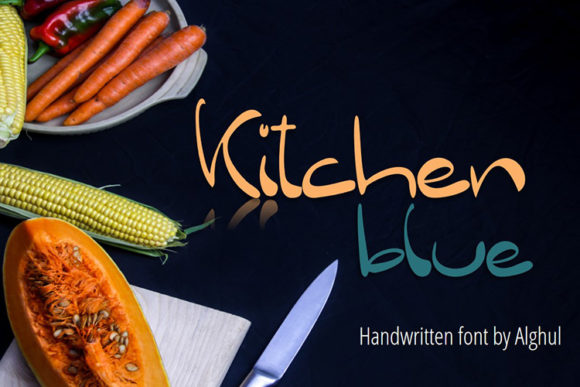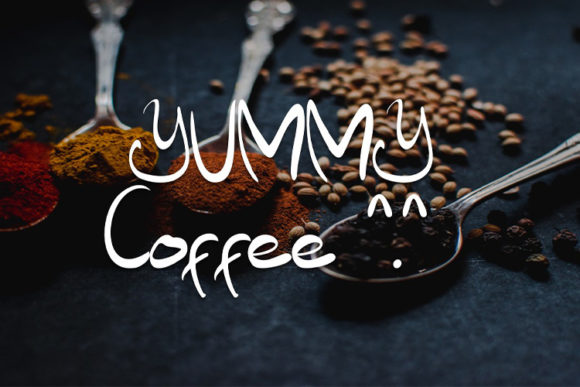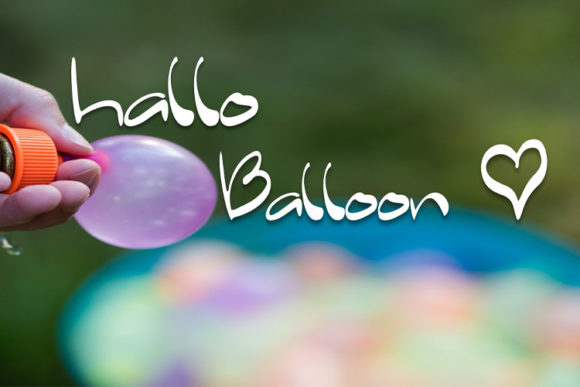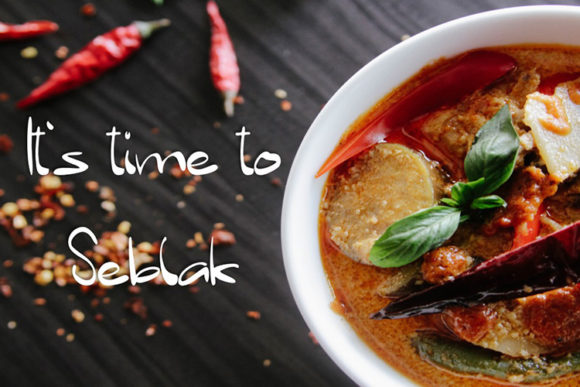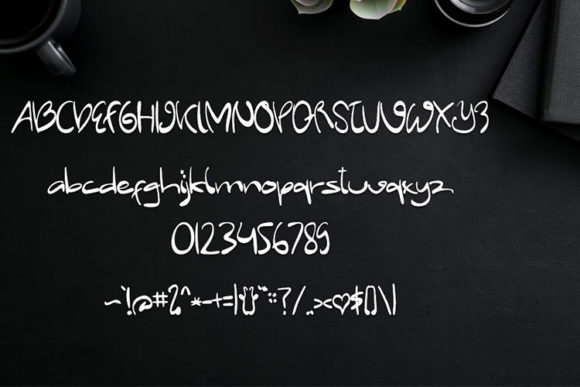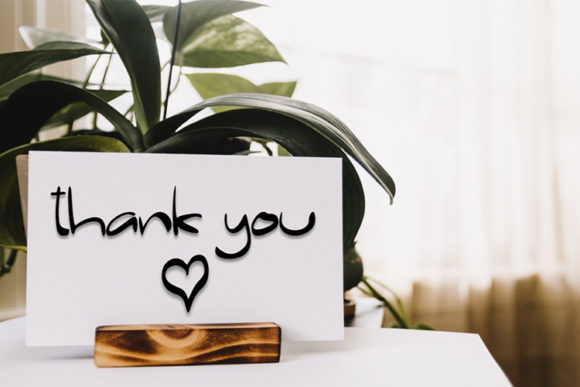
HomePersonal Use FreeKitchen Blue Personal Use Free Kitchen Blue FacebookTwitterPinterestWhatsApp 1 of 6 About Kitchen Blue Font Kitchen Blue is a sweet and friendly handwritten font. Its natural and unique style makes it incredibly fitting to a large pool of designs. DOWNLOAD NOW People also explored Vecbat Vo1 Font Vintage Memory Font HK Slab Font Photorealistic Table Book Mockup Winter Font Agatony – Handwritten Font Walking Talking Font Kawaguchi Font Summer Camp Font 117 0 TagsKitchen Blue Font Previous articleBamboomoeNext articleHommy You LEAVE A REPLY Cancel reply Comment: Please enter your comment! Name:* Please enter your name here Email:* You have entered an incorrect email address! Please enter your email address here Website: Save my name, email, and website in this browser for the next time I comment. Personal Use Free Hanberra Personal Use Free Read more about this font Bridgetown Font Personal Use Free Read more about this font Pinky Personal Use Free Read more about this font Just Love Personal Use Free Read more about this font BLOG Free Fonts Risk: Why Free Fonts Can Be Dangerous for Designers Free Fonts Risk: Why Free Fonts Can Be Dangerous for Designers Using free fonts is a common practice in web and graphic design. However, the... Top 7 Google Fonts Alternatives for Faster and Privacy-Friendly Web Design (2025) Exploring Font Trends Elegant Wedding Invitation Fonts – Handwritten & Script Fonts